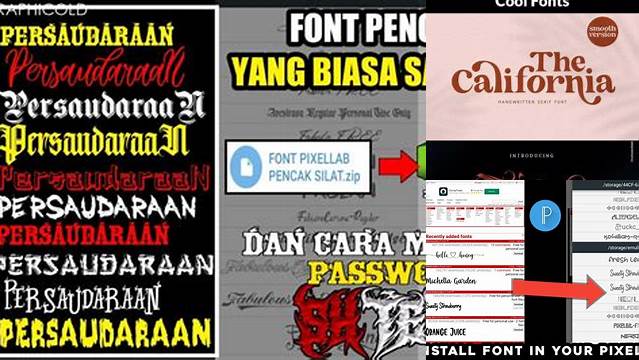
Cool Fonts For PixelLab: Design Like A Pro
Hey guys! Are you looking to make your PixelLab designs pop? Choosing the right font can make a huge difference. It's like the secret sauce that takes your visuals from "meh" to amazing. This article is your ultimate guide to cool fonts for PixelLab, so buckle up and get ready to explore a world of typography!
Why Fonts Matter in PixelLab
Okay, let's dive into why fonts are so crucial for your PixelLab projects. Think of fonts as the voice of your design. They communicate the mood, style, and overall message you're trying to convey. A playful, bubbly font will give off a different vibe than a sleek, modern one. The right font enhances your message, while the wrong font can confuse or even turn off your audience. Choosing appropriate fonts is more than just picking something pretty; it's about effectively communicating your message and making your design shine.
In PixelLab, you're creating visual content that often needs to grab attention quickly. Whether it's a social media graphic, a YouTube thumbnail, or a promotional poster, your text needs to be readable and engaging. A well-chosen font can instantly elevate your design, making it look more professional and polished. It helps to establish visual hierarchy, guiding the viewer's eye to the most important information. Moreover, a unique and stylish font can set your designs apart, helping you create a memorable brand identity. When you focus on selecting fonts that resonate with your brand and message, you're investing in the overall impact and effectiveness of your visual communication. So, don't underestimate the power of typography – it's a game-changer for your designs!
When you think about it, fonts have the power to evoke emotions. A bold, strong font can convey confidence and authority, while a delicate, cursive font might suggest elegance and sophistication. The font choices you make should align with the message and the feeling you want to create. For instance, a playful handwritten font can be perfect for a children's brand, whereas a clean, sans-serif font might be ideal for a tech company. By understanding the emotional impact of different fonts, you can carefully craft your designs to resonate with your target audience on a deeper level. Always remember, your text is not just words; it's a visual element that works in harmony with the other components of your design. So, make sure your font selections are purposeful and enhance the overall impact of your creative work.
Exploring Font Categories for PixelLab
Let's explore the exciting world of font categories! There's a huge variety out there, each with its own personality and best-use cases. Understanding these categories will help you narrow down your choices and find the perfect font for your project. We'll cover some of the most popular categories, giving you a solid foundation for your font adventures.
Serif fonts are those classic fonts that have small strokes, or “serifs,” at the ends of the letters. Think of fonts like Times New Roman or Georgia. Serif fonts often give off a traditional, formal, and trustworthy vibe. They're fantastic for body text in print materials like books and magazines because the serifs help guide the reader's eye across the page, improving readability. In PixelLab, serif fonts can add a touch of elegance and sophistication to your designs. Consider using them for headlines if you want to convey a sense of authority or tradition. Serif fonts are also great for designs that need a timeless feel, lending a sense of history and trustworthiness. When considering serif fonts, remember their classic appeal and how they can enhance the overall credibility of your message. Choosing the right serif font can bring a sense of refinement and professionalism to your work, making it stand out in a subtle yet powerful way.
Serif fonts are often categorized into different styles, such as Old Style, Transitional, and Modern. Old Style serifs, like Garamond, have a more organic and handwritten feel, perfect for adding a touch of warmth and authenticity to your designs. Transitional serifs, such as Baskerville, offer a balance between tradition and modernity, making them versatile choices for various projects. Modern serifs, like Didot, feature thin, elegant serifs and high contrast between thick and thin strokes, giving them a sophisticated and contemporary appearance. When working with serif fonts, thinking about which style best matches your project's tone and message will greatly improve your font selections. Each style has its own unique characteristics that can influence the overall impression of your design. Whether you're aiming for a classic, balanced, or modern look, understanding the nuances of serif styles will help you create impactful and visually appealing graphics in PixelLab.
Serif fonts can be particularly effective when paired with contrasting elements in your designs. For instance, combining a strong serif font with a clean sans-serif font can create a visually appealing and balanced layout. This juxtaposition can highlight key information and add depth to your design. Additionally, serif fonts often work well with minimalist designs, adding a touch of classic elegance without overwhelming the overall aesthetic. When incorporating serif fonts, consider how they interact with other design elements, such as colors, images, and spacing. Paying attention to these details will allow you to create harmonious and professional-looking designs. Remember, the goal is to use fonts strategically to enhance your message and engage your audience, and serif fonts offer a versatile option for achieving this in PixelLab.
Sans-serif fonts, on the other hand, are the sleek and modern cousins of serif fonts. They don't have those little strokes at the ends of the letters, giving them a clean and minimalist look. Think Arial, Helvetica, or Open Sans. Sans-serif fonts are often associated with contemporary design and are incredibly versatile. They work wonders for digital screens because of their excellent readability, making them perfect for websites, apps, and, of course, PixelLab projects. They convey a sense of simplicity, clarity, and modernity, which can make your designs feel fresh and up-to-date. Whether you're creating a logo, social media graphic, or a poster, sans-serif fonts can provide a clean and impactful visual foundation. Selecting a sans-serif font can instantly modernize your design, making it feel more approachable and easy to digest.
Sans-serif fonts come in various weights and styles, ranging from thin and light to bold and heavy. This versatility allows you to create visual hierarchy within your text by using different weights for headings and body text. A bold sans-serif font can make a powerful statement for a headline, while a lighter weight can be used for smaller text, ensuring readability without overwhelming the design. When playing with sans-serif fonts, consider the overall tone of your project and choose weights that align with your message. For instance, a bold font might be ideal for conveying strength and confidence, while a lighter font can suggest elegance and subtlety. By experimenting with different weights, you can add depth and visual interest to your designs, making them more engaging and effective.
Moreover, sans-serif fonts pair beautifully with various design elements and other font styles. They can complement both serif and other decorative fonts, creating a balanced and visually appealing composition. In PixelLab, sans-serif fonts work particularly well with modern graphics and vibrant colors, enhancing the overall contemporary feel of your designs. When considering sans-serif fonts, think about how they will interact with the other components of your project. Pairing a clean sans-serif font with a bold image or a colorful background can create a striking visual impact. The simplicity of sans-serif fonts allows them to work harmoniously with more complex elements, making them a reliable choice for a wide range of design needs. So, embrace the versatility of sans-serif fonts and explore how they can elevate your PixelLab creations.